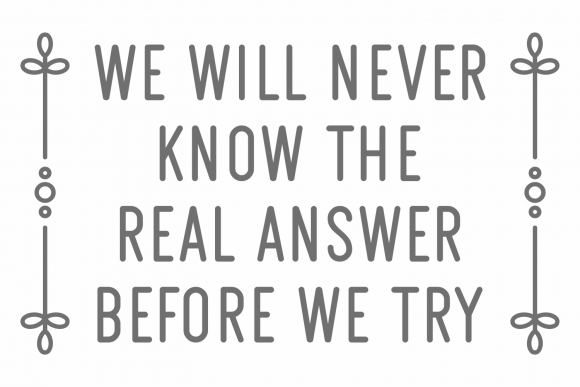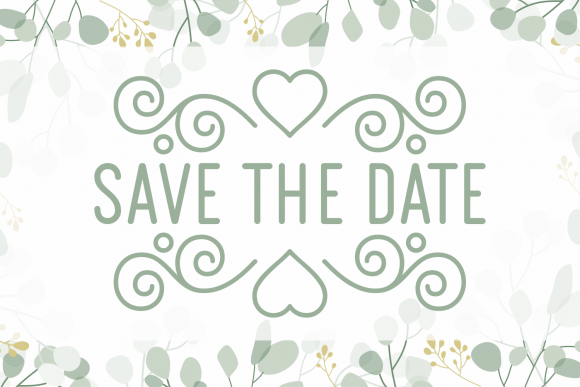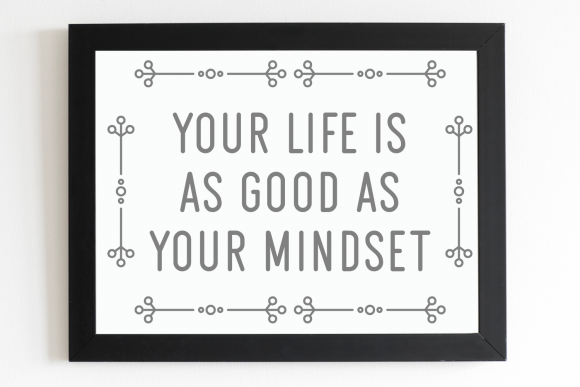
Introduction to Floweryn Dividers Font
Floweryn Dividers is a simple yet incredibly delicate and useful dingbats font.
Light but with a strong visual effect, this font will instantly make your creation more appealing than any others .
Why Choose Floweryn Dividers Font?
Floweryn Dividers Font offers exceptional quality and versatility, making it a valuable addition to your design toolkit. Whether you’re creating for personal projects or commercial use, Floweryn Dividers Font delivers professional results.